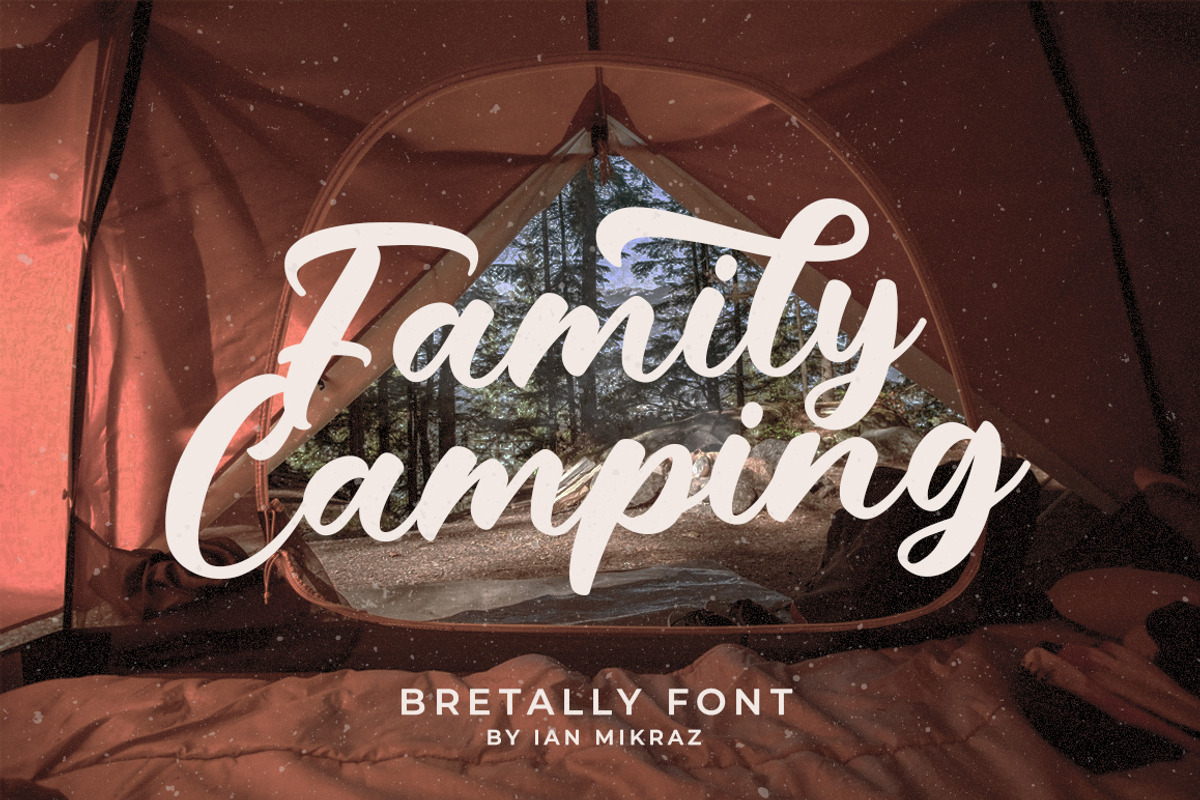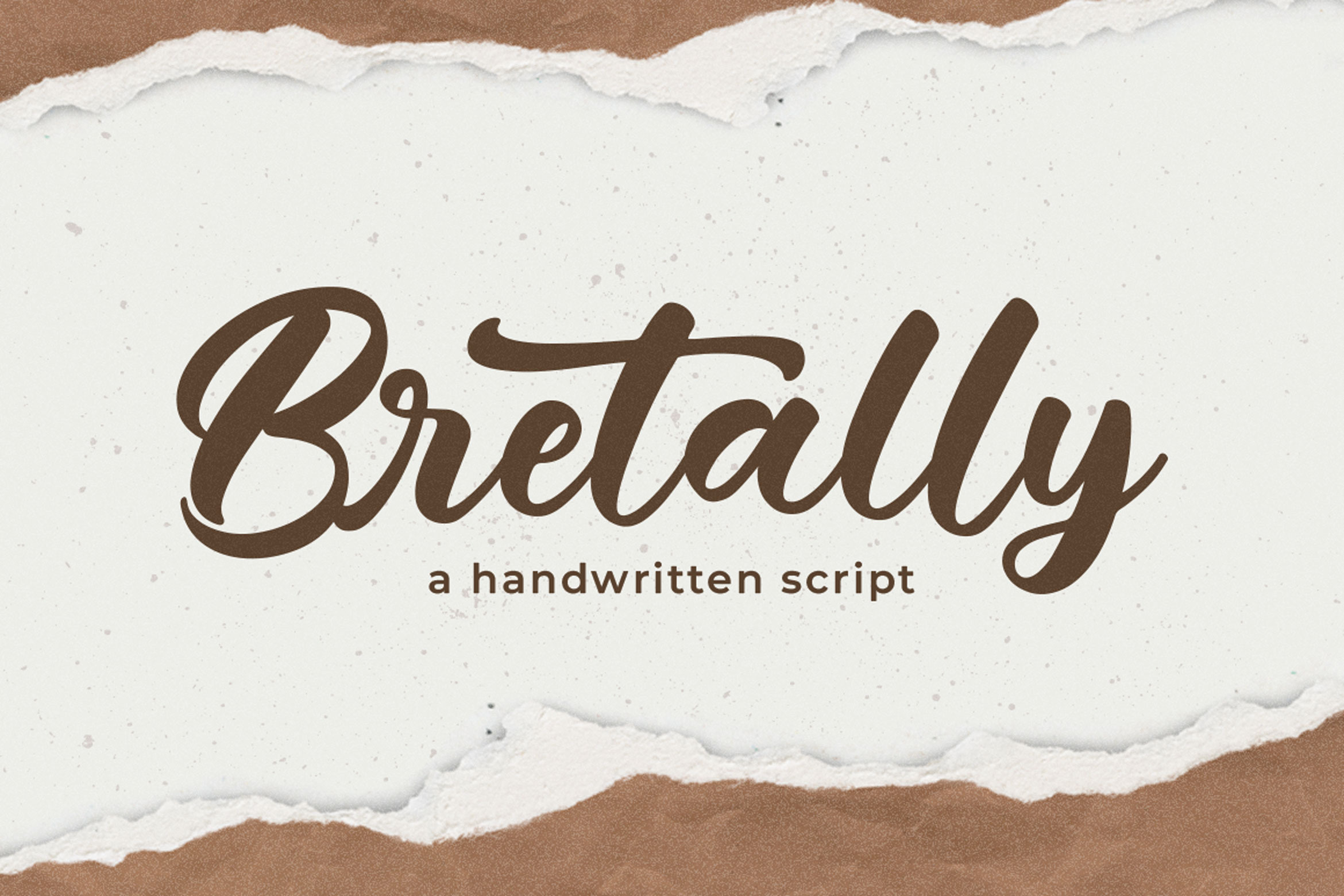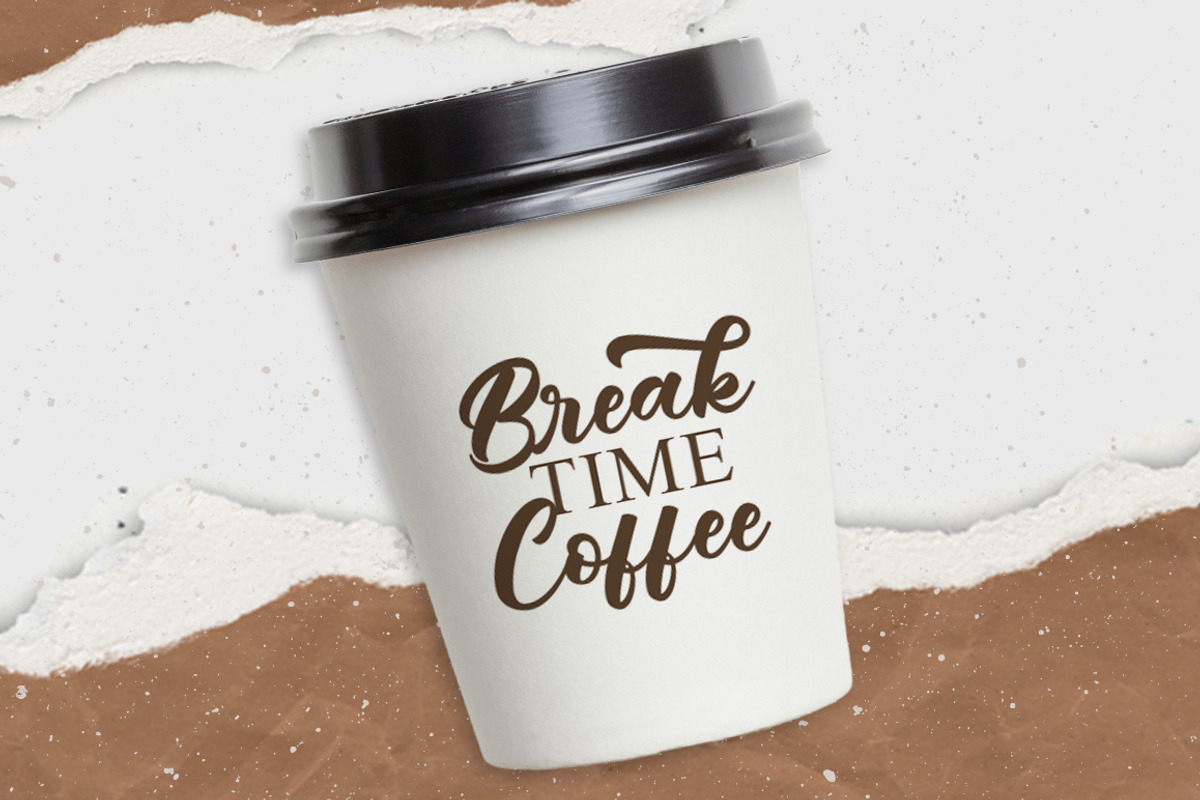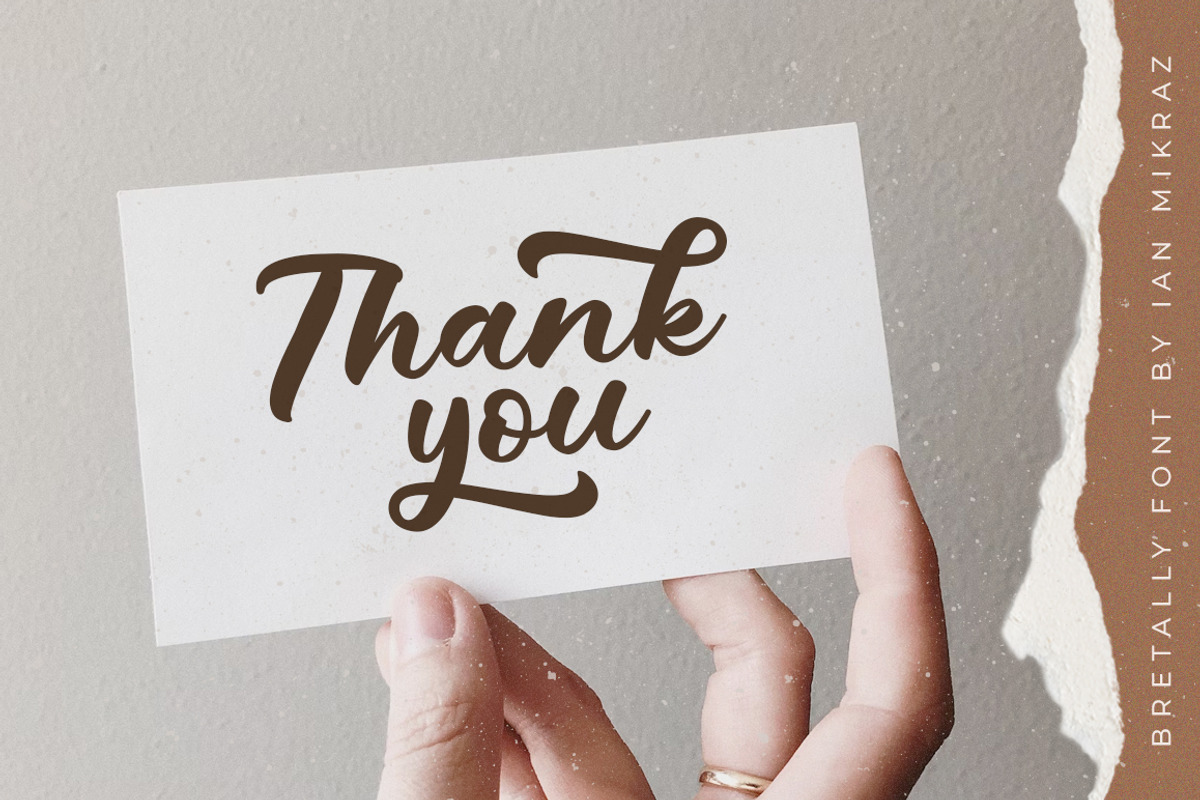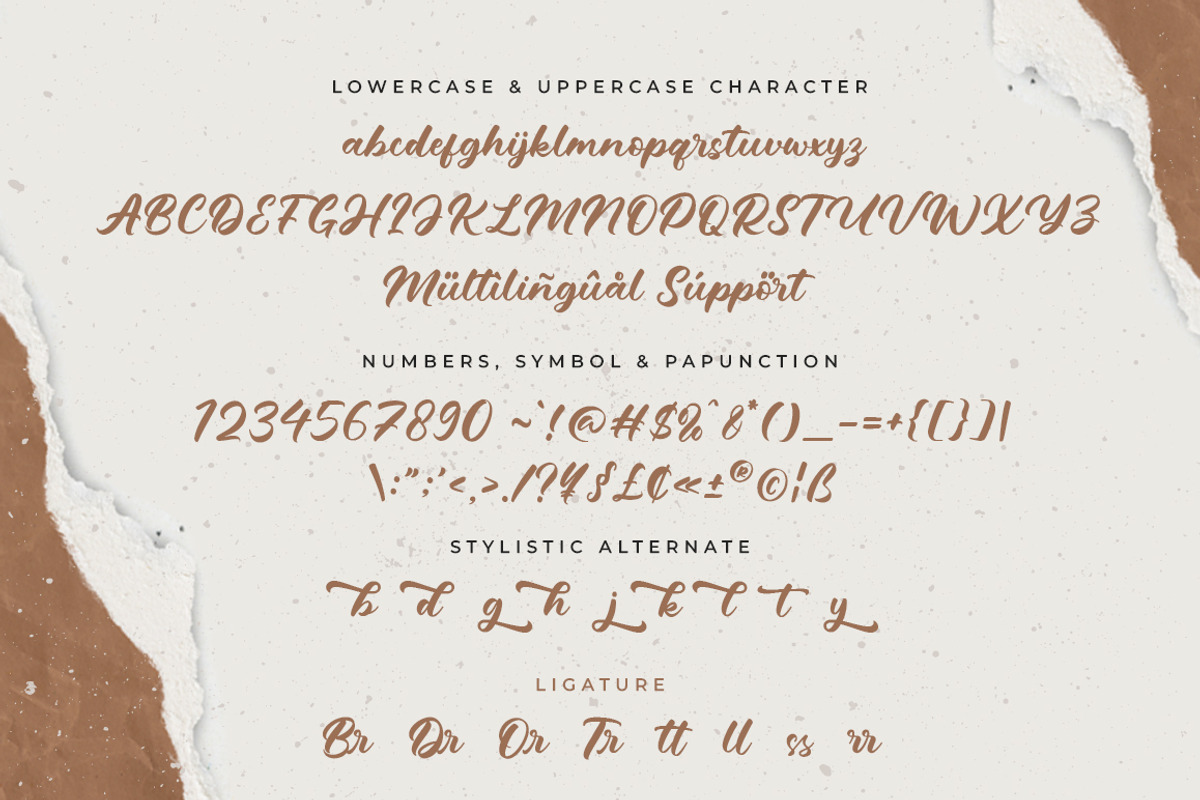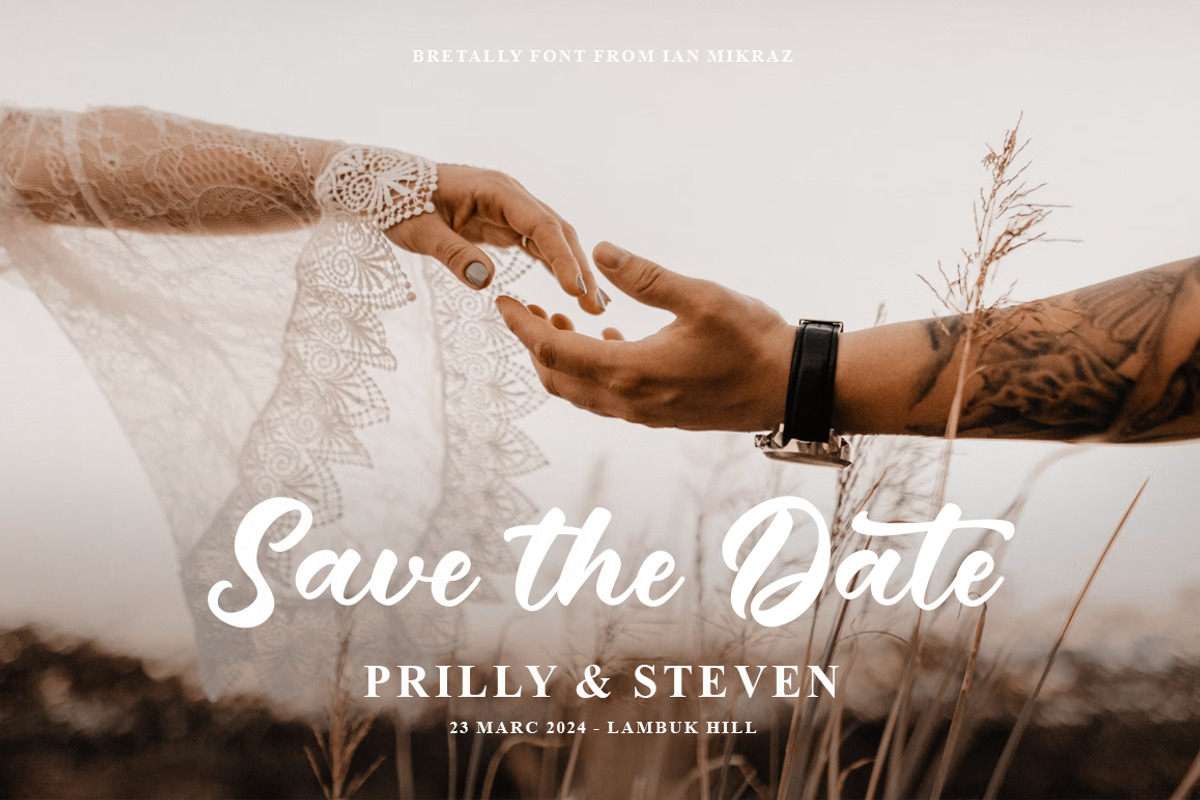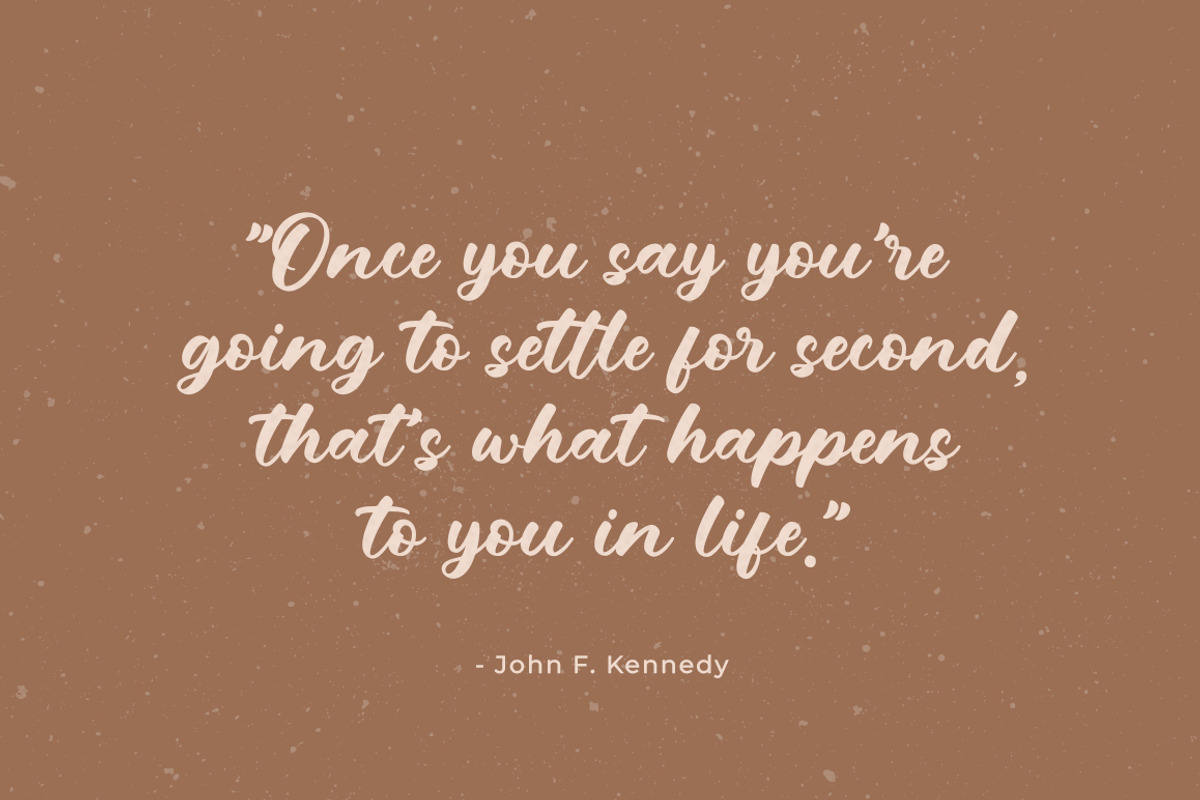
Bretally - A Handwritten Font
Bretally is a charming handwritten font that brings a personal touch to any project. Its unique and flowing style captures the essence of authentic handwriting, making it perfect for invitations, greeting cards, branding, and more. With Bretally, you can add warmth and character to your designs, creating a welcoming and approachable feel that resonates with your audience.
The font is easy to use and works seamlessly with various design software, offering versatility and convenience for designers of all levels. Whether you're aiming for a casual, whimsical look or a more elegant and refined style, Bretally adapts beautifully to your creative vision. Elevate your projects with the heartfelt and captivating appeal of Bretally handwritten font!
- Standart ligatures
- Stylistic Alternate